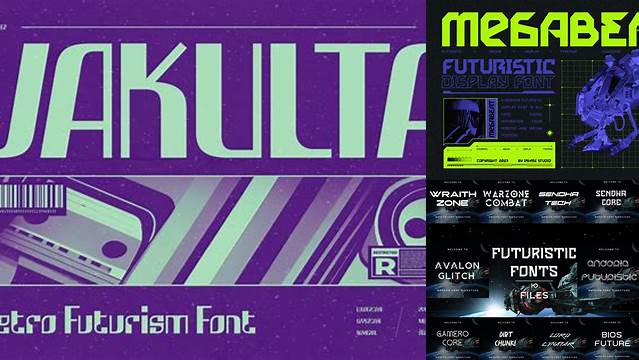
Retro-Futuristic Fonts: Canva Design Guide
Hey guys! Are you ready to take a wild ride through time and space? Today, we’re diving deep into the awesome world of retro-futuristic fonts available on Canva. If you're looking to add a touch of vintage charm mixed with a glimpse of tomorrow to your designs, you've come to the right place. Let's explore how you can use these fonts to create designs that are out of this world!
What are Retro-Futuristic Fonts?
First off, let's get clear on what retro-futuristic fonts actually are. Imagine a world where the future was envisioned through the lens of the past. That's retro-futurism in a nutshell! These fonts combine the sleek, optimistic designs that people in the mid-20th century thought the future would look like, with vintage aesthetics. Think flying cars, space-age gadgets, and bold, geometric shapes. Retro-futuristic fonts often feature elements like sharp angles, rounded forms, and a sense of forward motion, all while maintaining a distinct vintage vibe.
These fonts draw inspiration from various sources, including sci-fi books, classic movie posters, and mid-century modern design. They evoke feelings of nostalgia, innovation, and a sense of wonder about what could have been. Using retro-futuristic fonts can instantly give your project a unique, eye-catching look that stands out from the crowd.
Why Use Retro-Futuristic Fonts?
So, why should you even bother with retro-futuristic fonts? Well, for starters, they're incredibly versatile. Whether you're designing a poster, creating a logo, or putting together a presentation, these fonts can add a unique flair that captures attention. They're perfect for projects that aim to evoke a sense of nostalgia, technological optimism, or just plain cool.
Imagine designing a poster for a retro-themed party. A retro-futuristic font can instantly transport your audience to a bygone era, setting the perfect tone for the event. Or picture creating a logo for a tech startup. A font that blends vintage charm with futuristic elements can communicate innovation while also conveying a sense of history and reliability.
Moreover, retro-futuristic fonts can help you create a strong visual identity. In a world saturated with generic designs, using a distinctive font can make your brand more memorable and recognizable. These fonts have character and personality, which can resonate with your audience and leave a lasting impression.
Top Retro-Futuristic Fonts on Canva
Okay, let's get to the good stuff! Canva has a treasure trove of retro-futuristic fonts just waiting to be discovered. Here are some of my top picks that you absolutely need to check out:
1. BAYSIDE
Bayside is a font that screams classic sci-fi. With its bold, geometric letterforms and subtle curves, it’s perfect for headlines and titles that need to make a statement. Think vintage movie posters and old-school arcade games. This font has a strong, confident presence that commands attention.
2. NASALIZATION
If you're going for a more modern take on retro-futurism, Nasalization is an excellent choice. Its sleek, streamlined design gives it a contemporary feel, while still retaining that vintage charm. It's highly readable and works well in both headlines and body text. Its clean lines and minimalist aesthetic make it a versatile option for a wide range of projects.
3. OXYGEN
Oxygen is a sans-serif font that strikes a perfect balance between futuristic and approachable. Its rounded terminals and uniform stroke width give it a friendly, inviting feel, while its overall design hints at technological innovation. Use it for websites, apps, and branding materials that need to convey a sense of modernity and reliability.
4. MONTSERRAT
While not strictly retro-futuristic, Montserrat has a certain geometric quality that lends itself well to the aesthetic. It's a versatile sans-serif font that can be used in a variety of contexts. Pair it with other retro-futuristic elements to create a cohesive design.
5. BEBAS NEUE
Bebas Neue is another excellent option for adding a touch of modern sophistication to your retro-futuristic designs. It's a tall, narrow sans-serif font that exudes confidence and style. Use it for headlines, posters, and branding materials that need to make a bold statement. Its clean lines and minimalist design make it a versatile choice for a variety of projects.
How to Use Retro-Futuristic Fonts Effectively
Now that you know some awesome retro-futuristic fonts on Canva, let's talk about how to use them effectively. Here are a few tips to keep in mind:
1. Pair Wisely
Font pairing is crucial for creating a visually appealing design. When using a retro-futuristic font, choose complementary fonts that enhance its unique qualities. For example, you might pair a bold retro-futuristic headline font with a clean, simple sans-serif body text font for readability.
2. Color Palette
The colors you use can greatly impact the overall look and feel of your design. Retro-futuristic designs often incorporate bold, vibrant colors like neon blues, electric greens, and hot pinks. Experiment with different color combinations to find what works best for your project.
3. Visual Elements
Incorporate retro-futuristic visual elements to complement your fonts. Think geometric shapes, vintage illustrations, and futuristic icons. These elements can help reinforce the overall theme and create a cohesive design.
4. Hierarchy
Pay attention to visual hierarchy to guide your audience's eye through your design. Use different font sizes, weights, and styles to create a clear hierarchy of information. This will help ensure that your message is communicated effectively.
5. Consistency
Maintain consistency throughout your design to create a polished, professional look. Use the same fonts, colors, and visual elements across all of your materials to establish a strong brand identity.
Examples of Retro-Futuristic Designs
Need some inspiration? Here are a few examples of how you can use retro-futuristic fonts and design elements to create stunning visuals:
1. Movie Poster
Design a movie poster for a fictional sci-fi film. Use a bold retro-futuristic font for the title and incorporate vintage illustrations of spaceships and robots. Add a vibrant color palette to complete the look.
2. Tech Startup Logo
Create a logo for a tech startup that combines vintage charm with futuristic elements. Use a sleek retro-futuristic font and incorporate geometric shapes to convey innovation and modernity.
3. Retro Party Invitation
Design an invitation for a retro-themed party. Use a playful retro-futuristic font and incorporate neon colors and vintage illustrations to set the tone for the event.
4. Website Header
Create a website header that captures the essence of retro-futurism. Use a bold retro-futuristic font for the headline and incorporate futuristic icons and geometric shapes to create a visually engaging design.
5. Social Media Graphic
Design a social media graphic that promotes a new product or service. Use a sleek retro-futuristic font and incorporate vibrant colors and modern illustrations to capture attention and convey a sense of innovation.
Get Creative with Retro-Futuristic Fonts on Canva!
So, there you have it! A comprehensive guide to using retro-futuristic fonts on Canva. With the right fonts, colors, and visual elements, you can create designs that are both nostalgic and forward-thinking. So go ahead, experiment with different combinations and see what you come up with. The possibilities are endless!